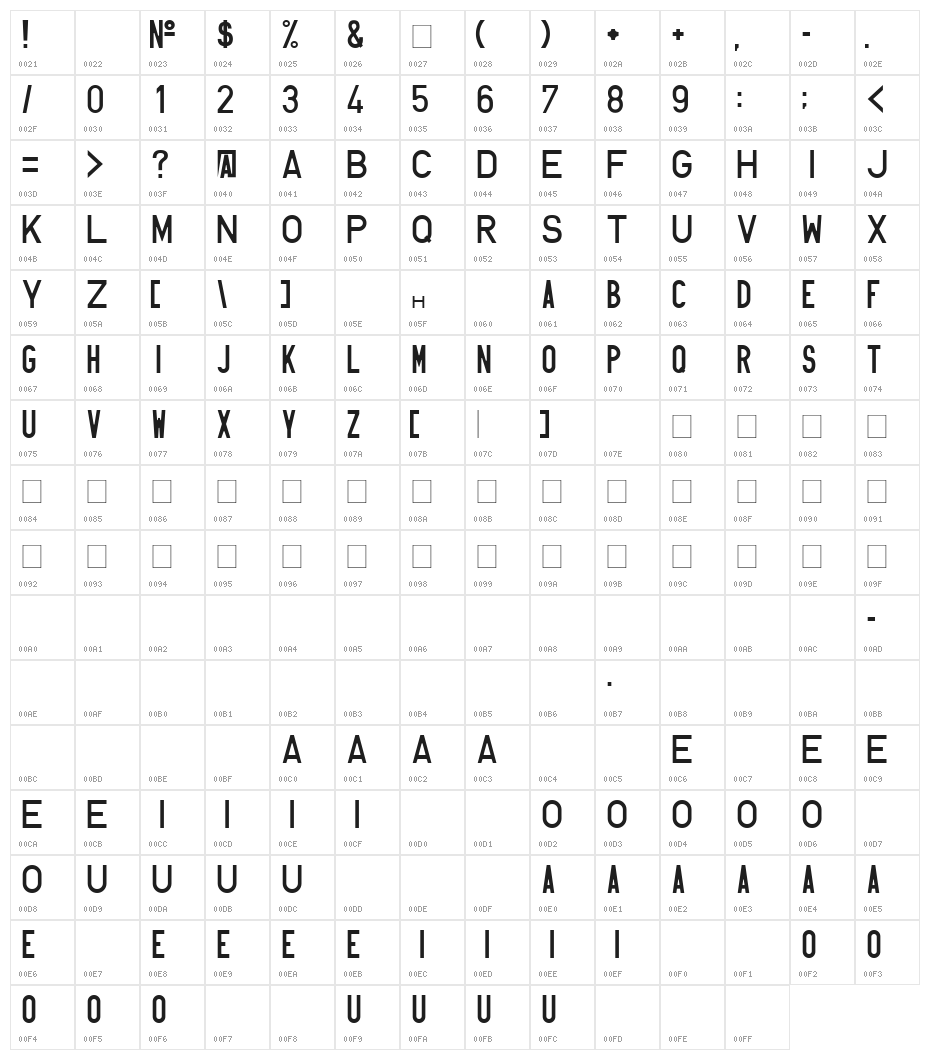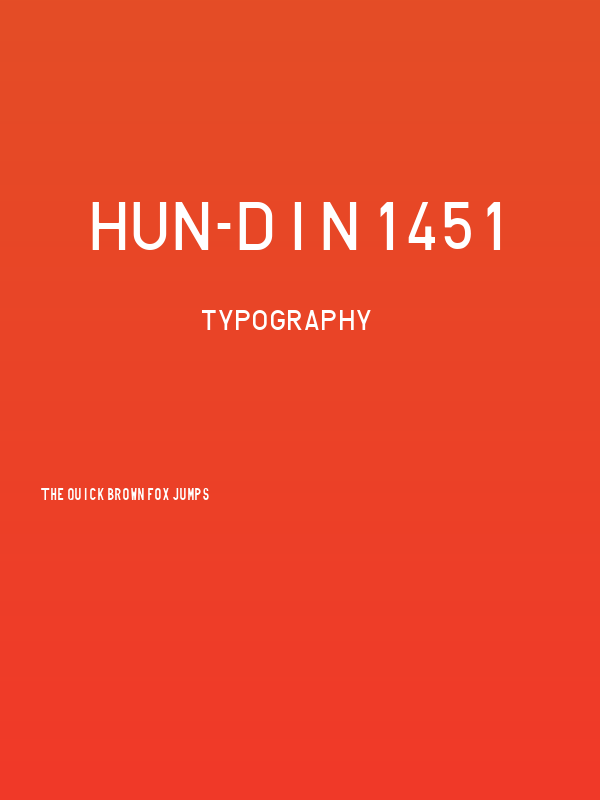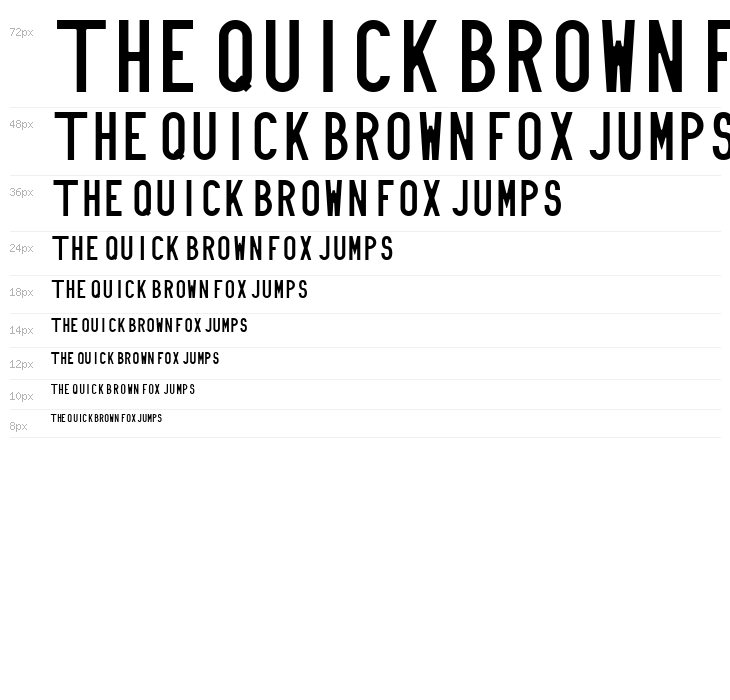
HUN-din 1451 Font
HUN-din 1451 Description
This font features a bold and modern aesthetic with clean, straight lines and a geometric structure. The uppercase letters are uniform in height, creating a cohesive and balanced appearance. The numerals are equally bold, maintaining the same visual weight as the letters. Special characters are included, such as punctuation and symbols, which are designed to match the overall style. The font's design is versatile, making it suitable for a variety of applications where a strong, impactful presence is desired.
Use CaseHeadlines, Logos, Signage
Proposed ProjectsIdeal for branding, signage, headlines, and digital media where a strong visual impact is needed.